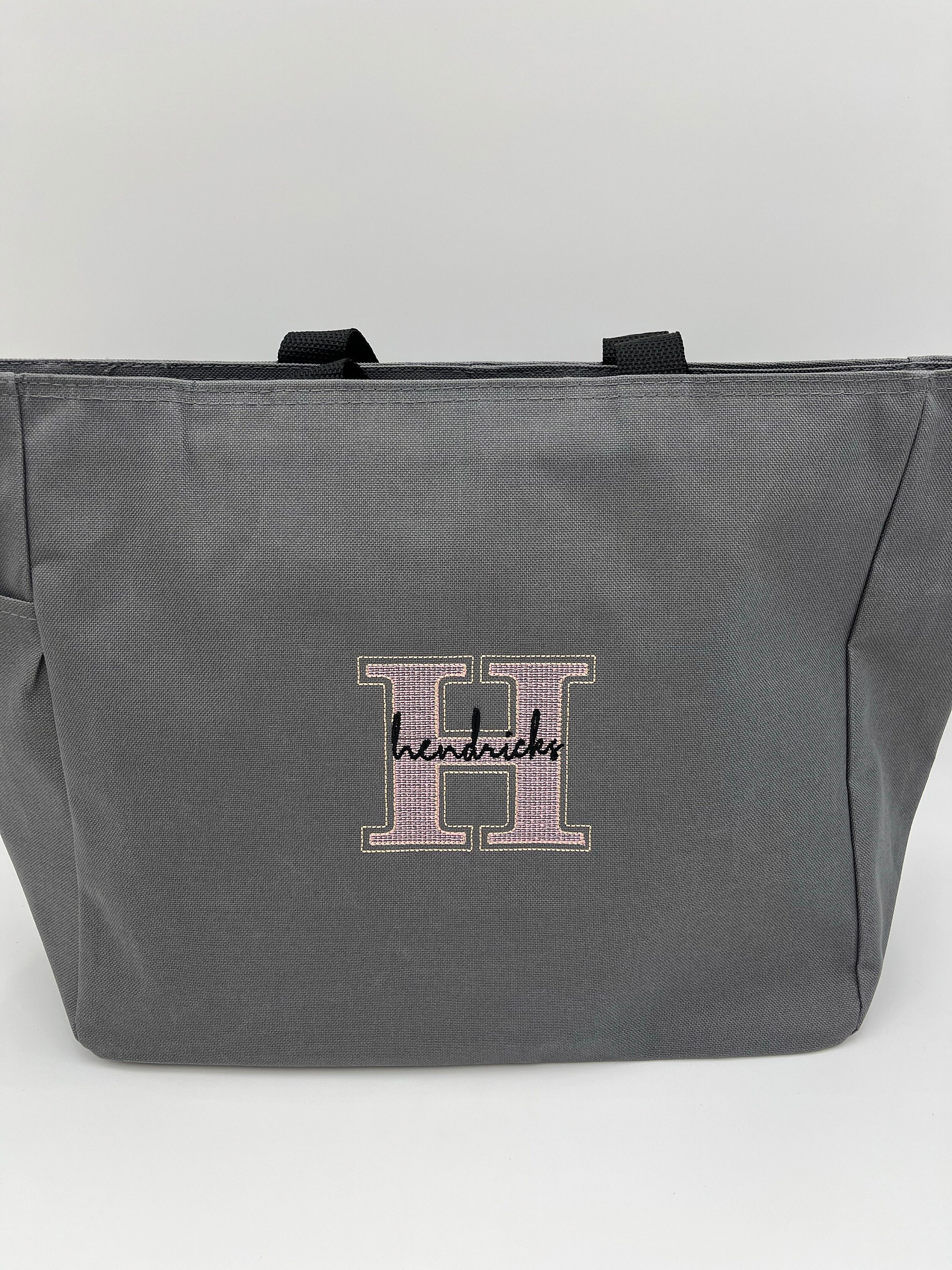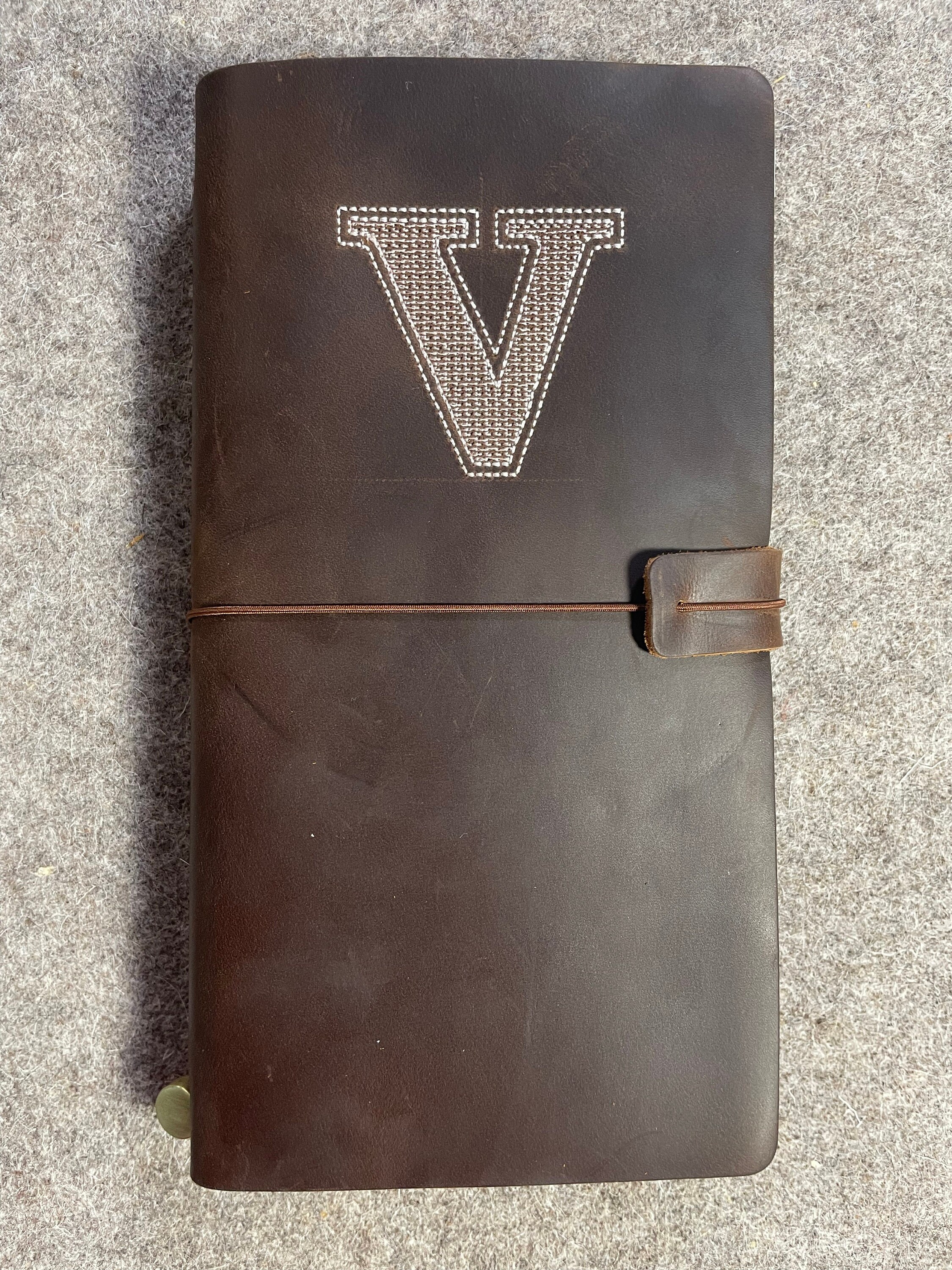
Golden light stitch block sheriff Font, may use with Script calligraphy signature Handwritten Font, machine embroidery designs in assorted sizes
Uppercase and lowercase letters Aa-Zz, numbers 0-9, and punctuation & . , -
Combine this font with any other as you wish and enjoy the awesome result!
This sewed out beautiful on leather! Since you have to use a light stitch font, this one is the best!